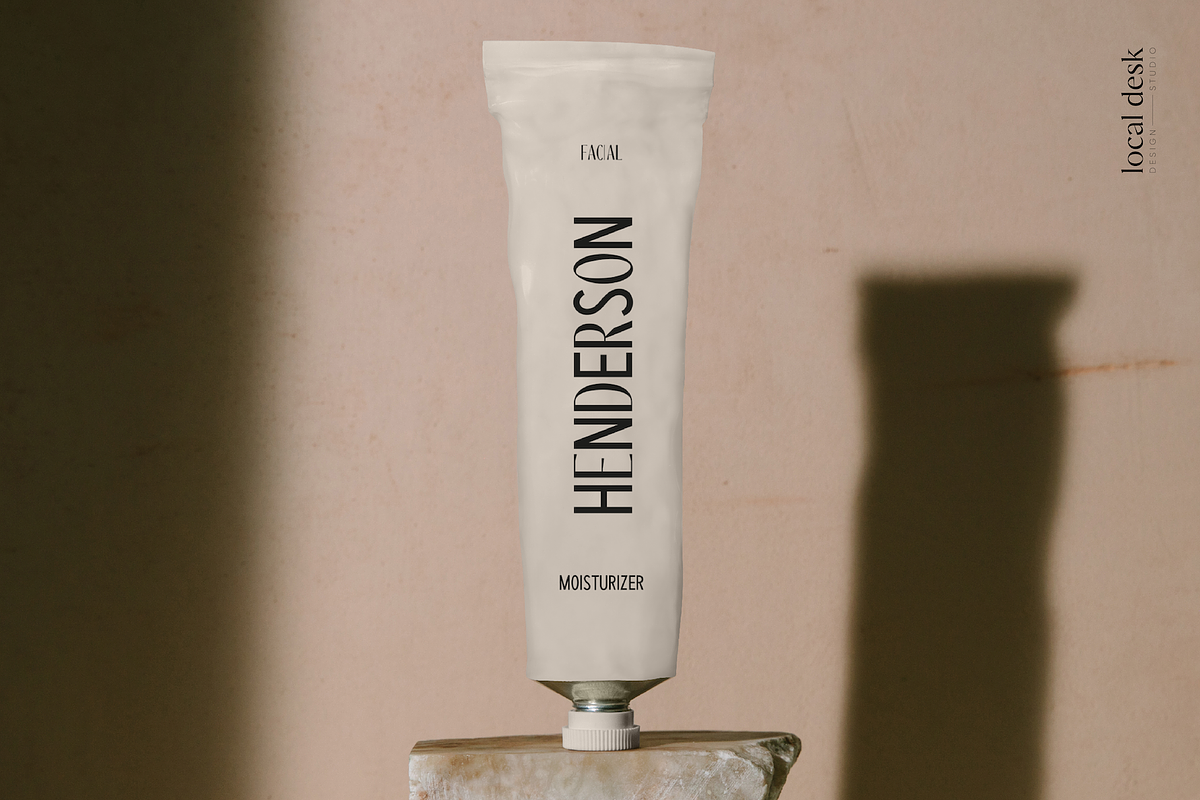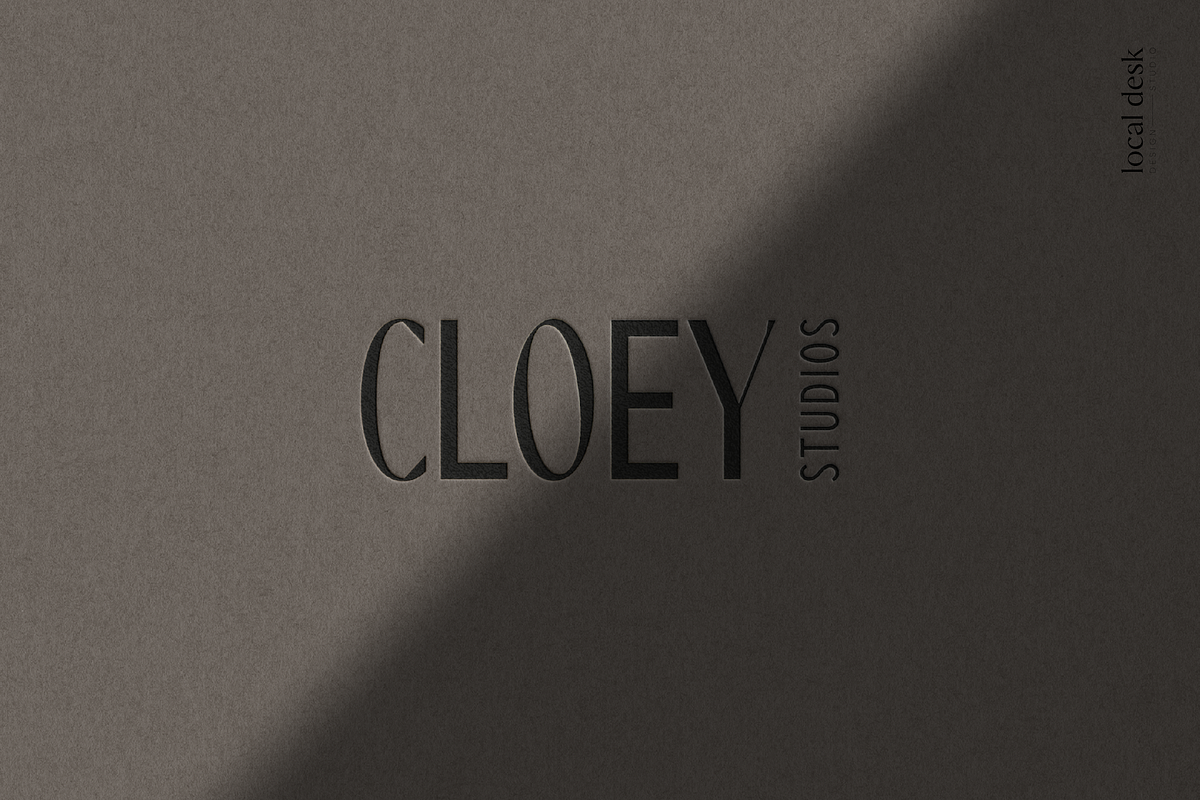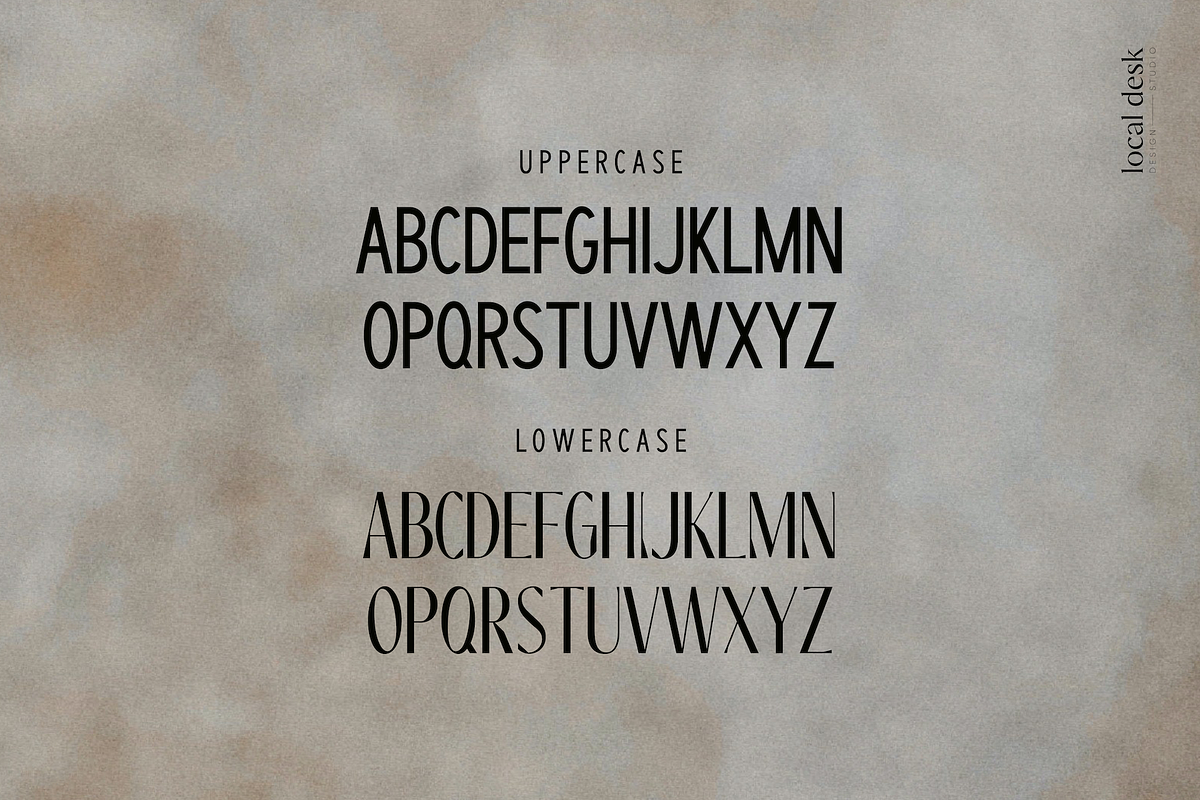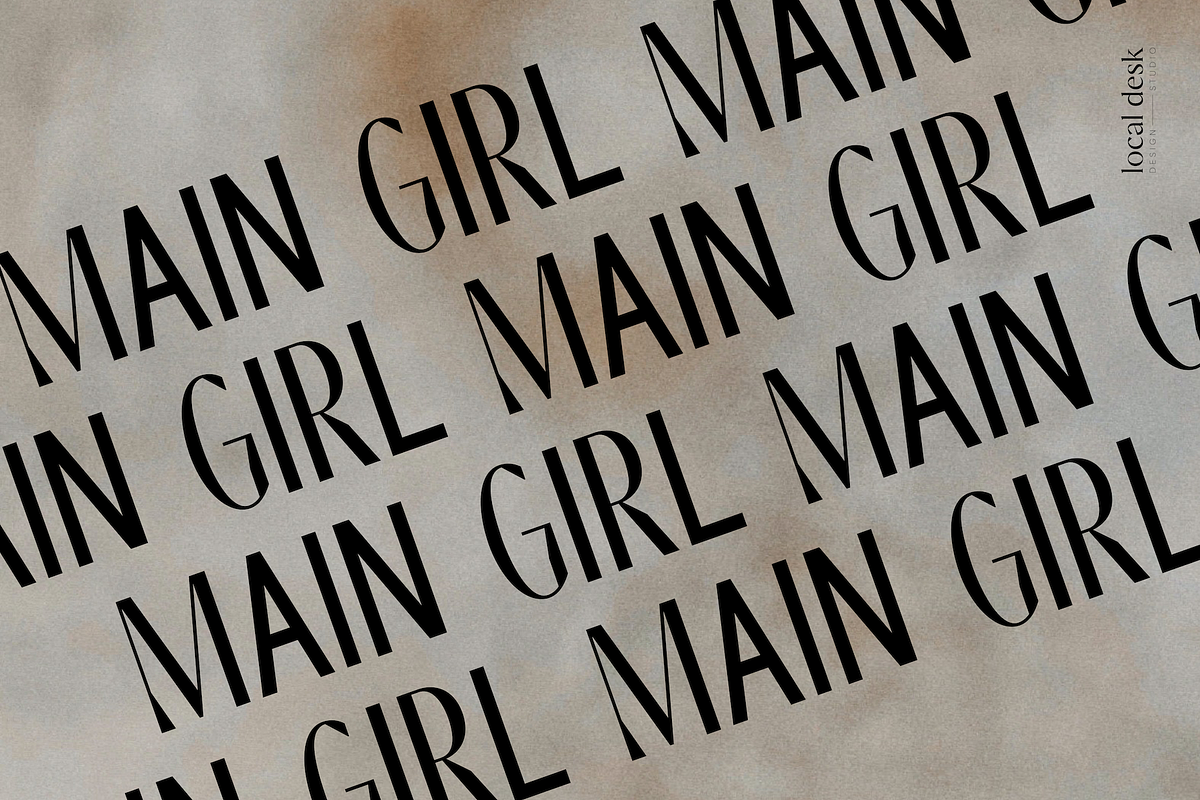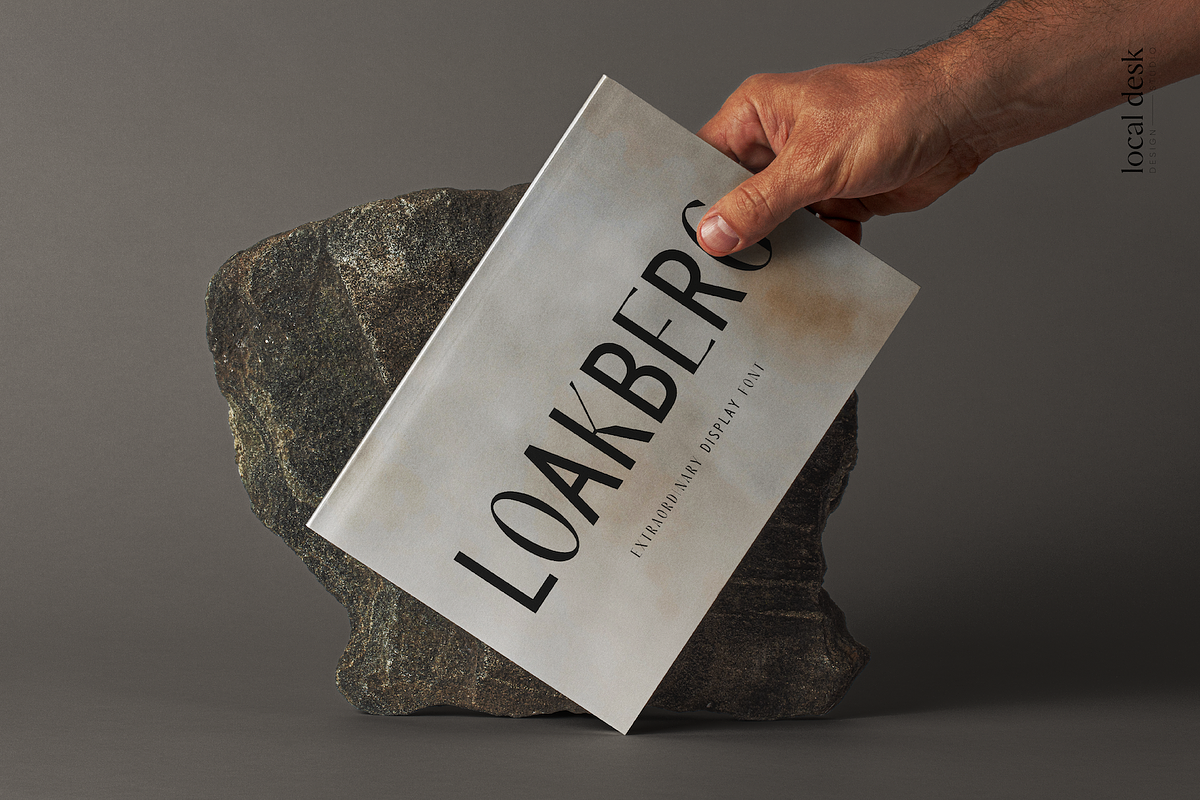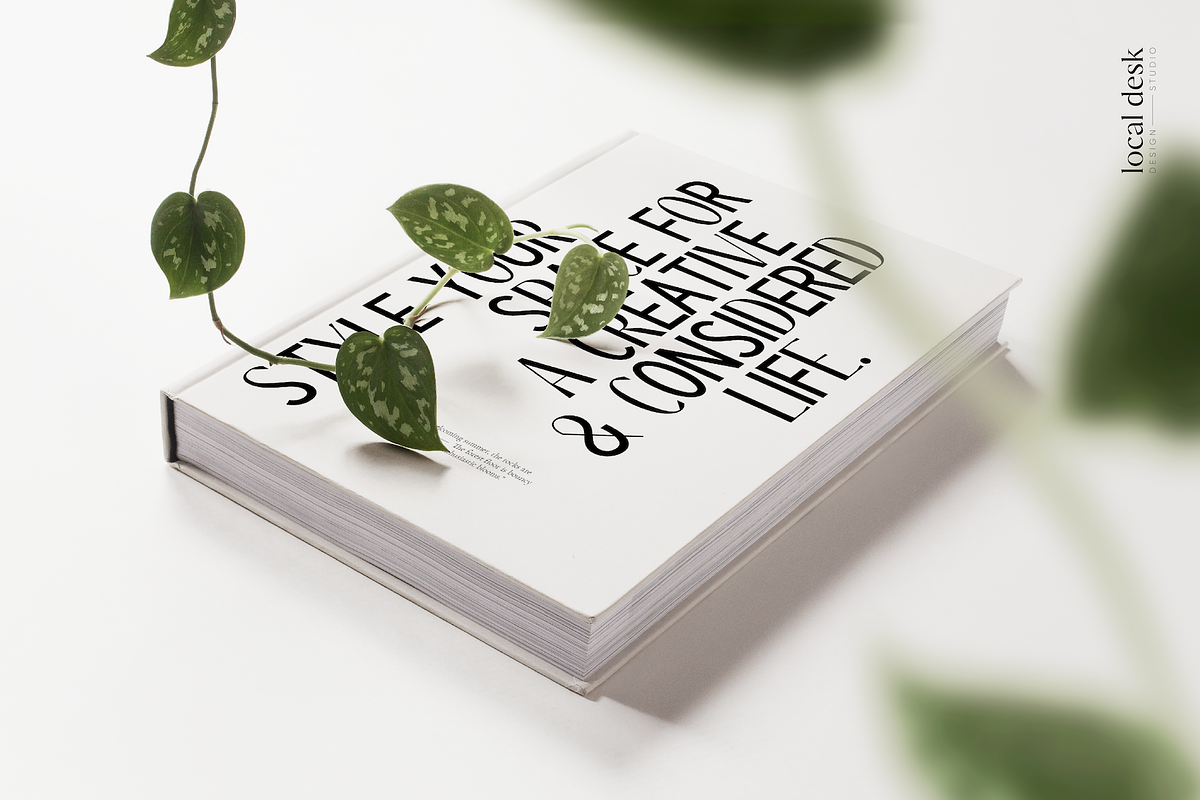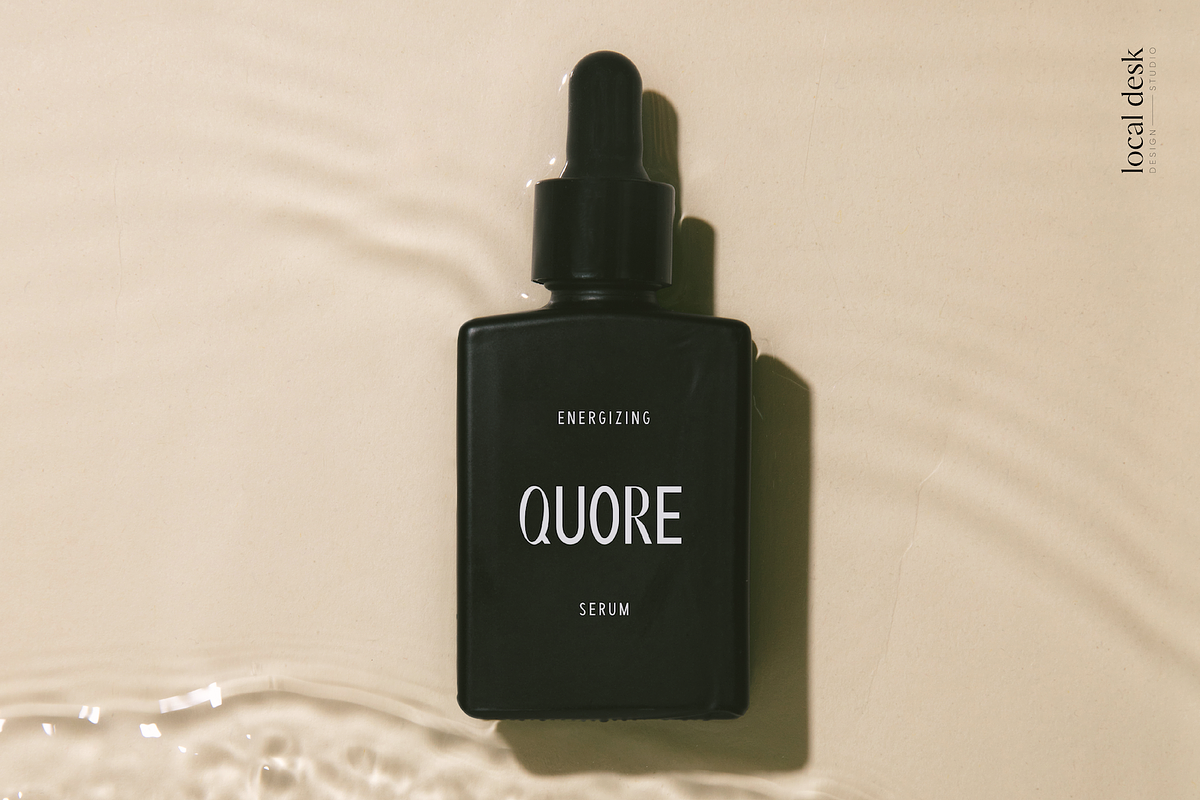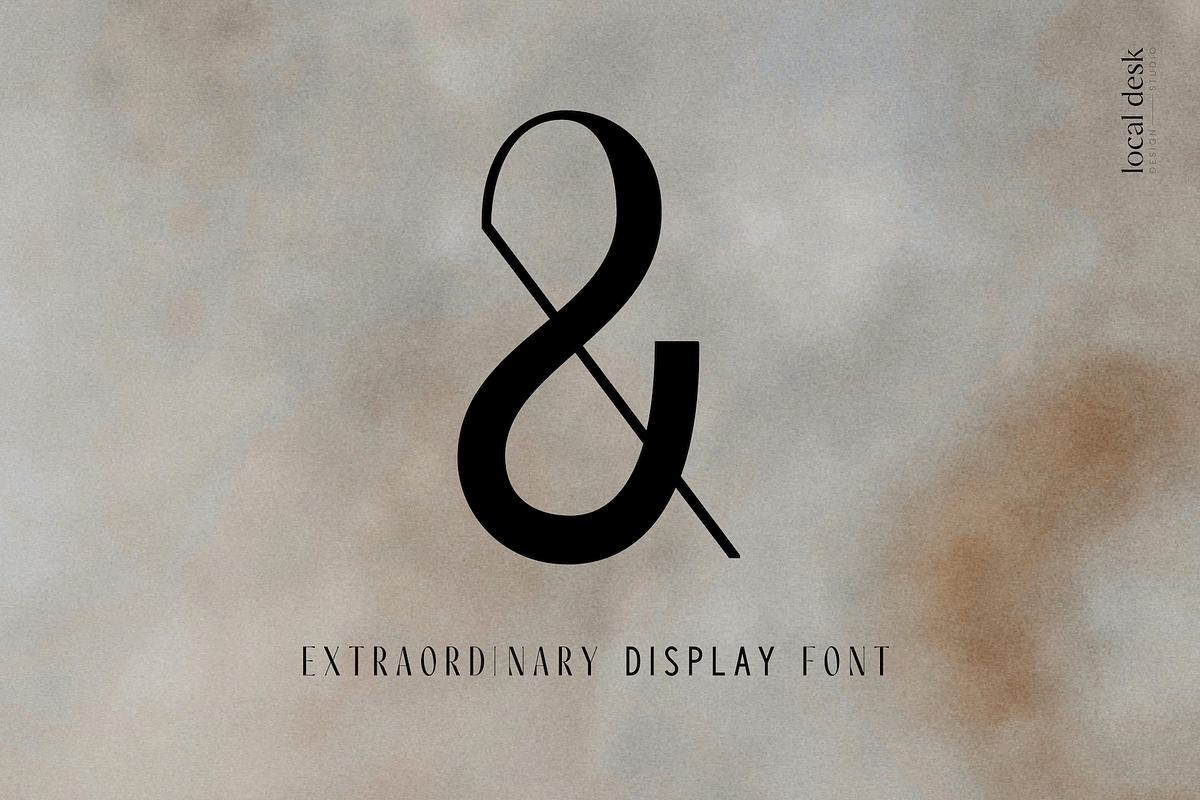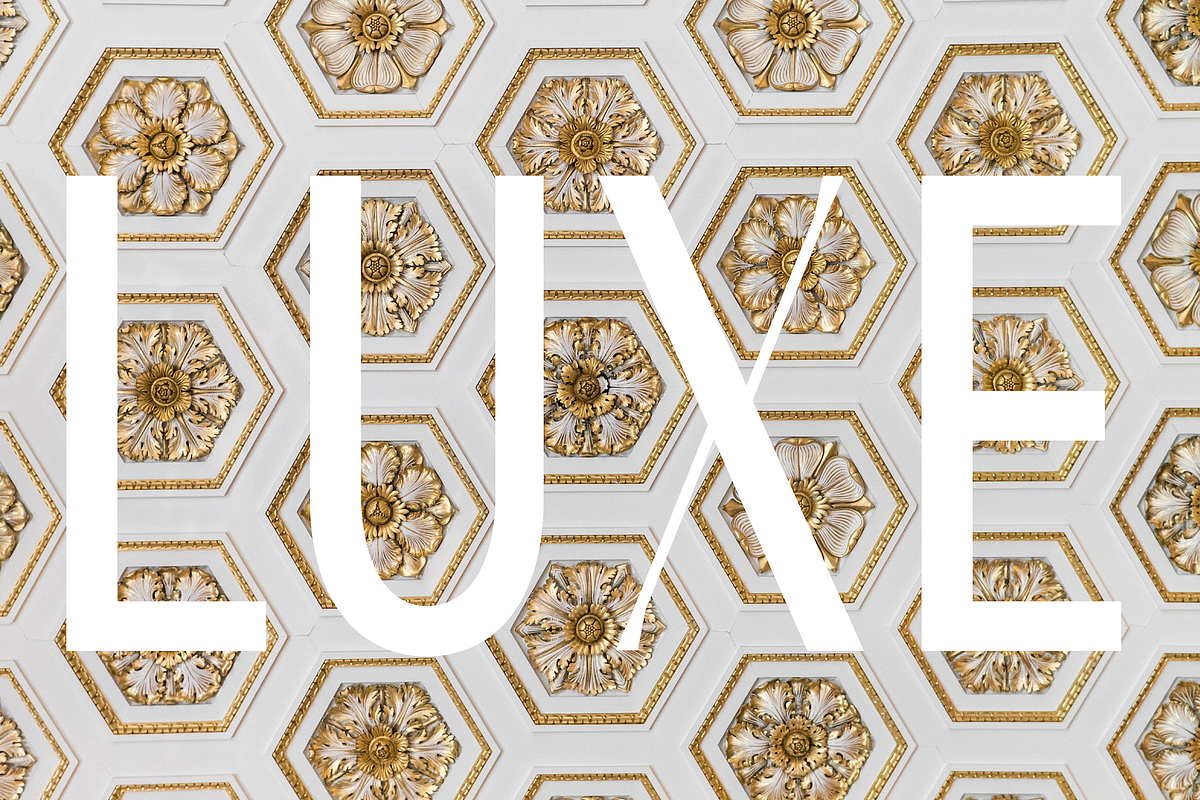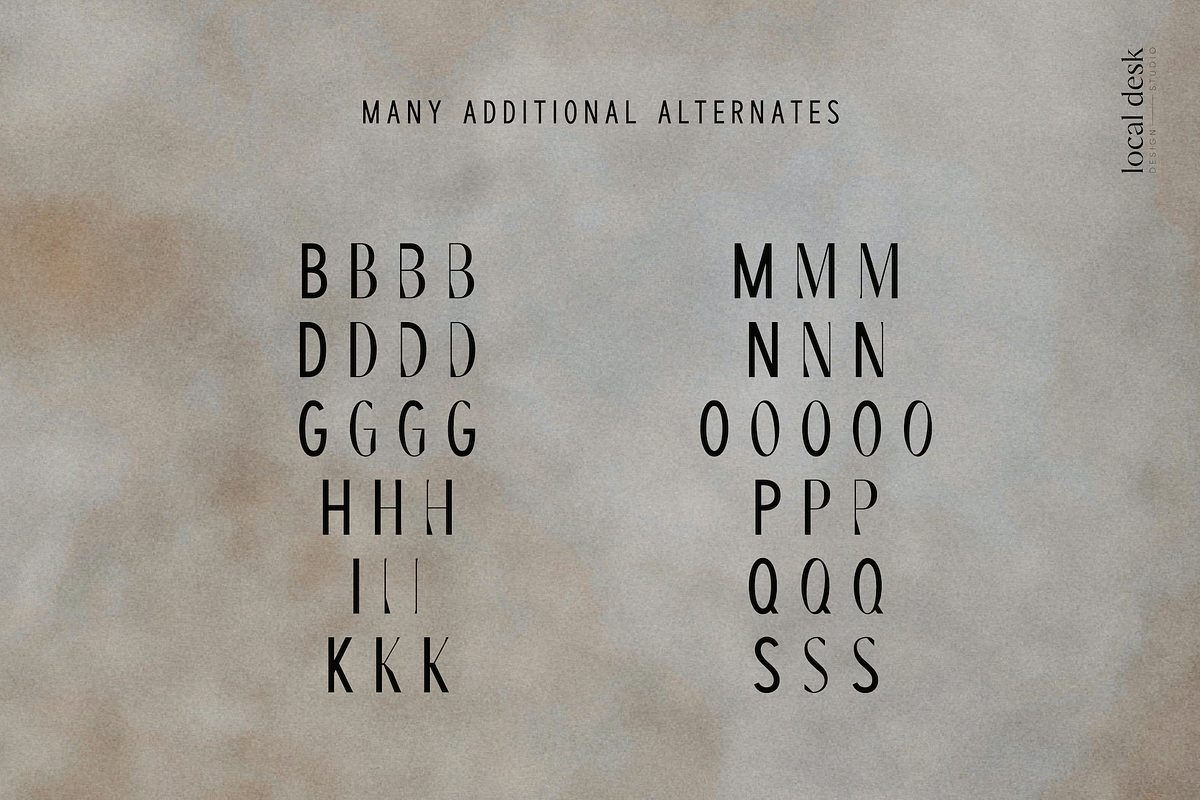
Loakberg – Extravagant Display Font
Loakberg is a extraordinary & modern display typeface that is perfectly suited for designing unique logos & trendy brands, elegant packaging, beautiful website headers, and so much more!
This font is equipped with over 26 stylish alternates to make everything you design look bespoke, customized and professional. The thoughtfully designed alternates in combination with the timeless & clean main characters create the perfect balance for your design project.
The alternate characters can be used by simply typing the appropriate lowercase letter. This way you can create modern & individualized word marks within seconds – AND you can do this in any software e.g. Canva.
This font is perfect for: distinctive branding, elegant cover designs, stylistic headlines, trending packaging, meaningful quotes and so much more.
- Uppercase Letters
- more than 26 Stylistic Alternates
- Numbers & Punctuation & Basic Symbols